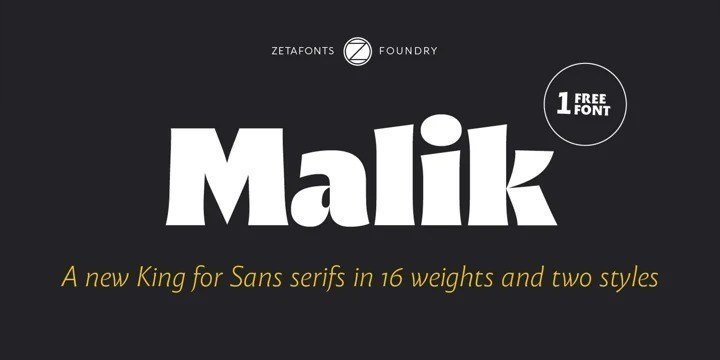
Malik Sans Serif Font Free
Malik Font is a modern sans serif typeface inspired by transitional and contemporary typefaces. Malik has been designed with high-contrast character ratio to give an elegant touch, and high x-height to give sentences more legibility. Malik offers many possibilities to be applied in many graphic or editorial projects.